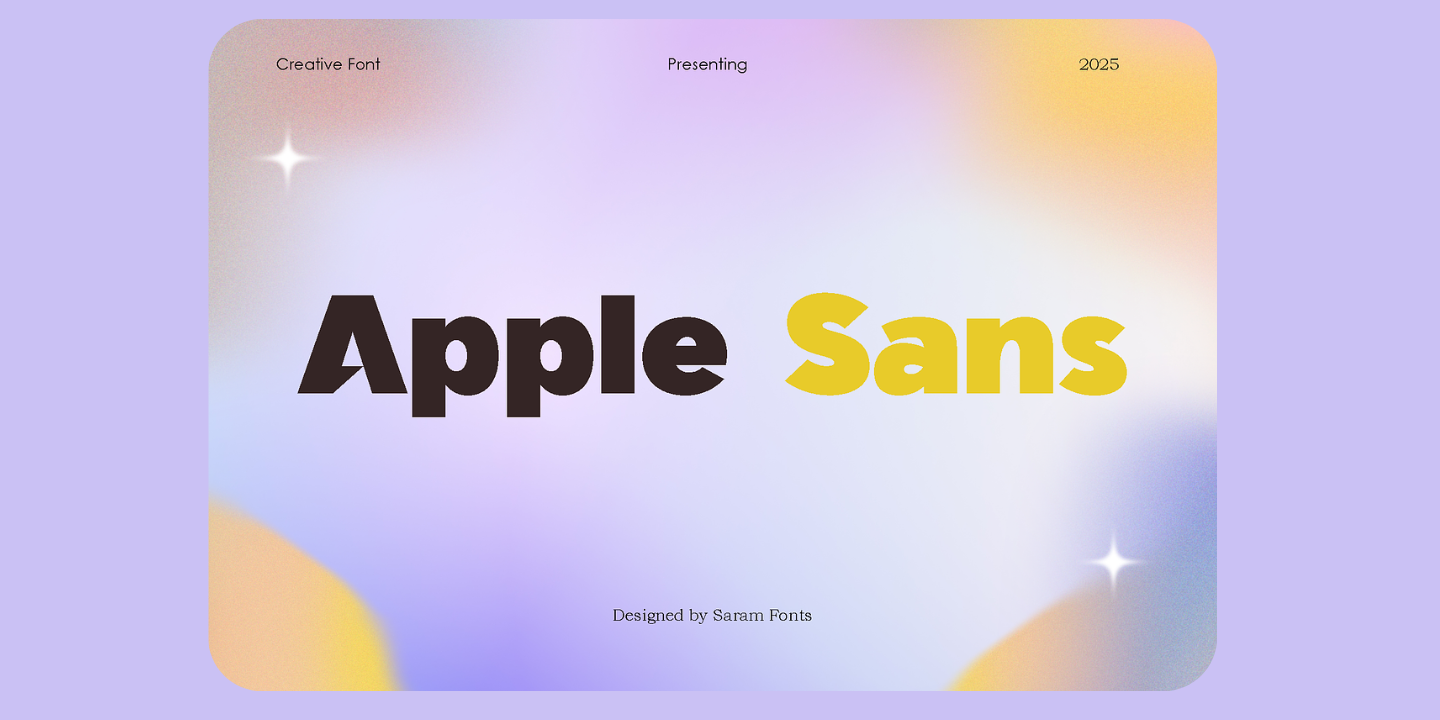
Apple Sans is a clean and contemporary Sans Serif font, perfect for creating sleek and professional designs. With its refined letterforms and versatile style, this typeface is ideal for logos, posters, headlines, web design, magazines, packaging, stationery, and more.
With OpenType features, including a wide selection of alternate letters and ligatures, Apple Sans allows you to effortlessly craft unique typography, making it an excellent choice for branding and creative projects.
Modern Sans Serif Design – A clean and professional look for any project.
OpenType Features – Access alternate characters and ligatures for unique typography.
Multilingual Support – Covers multiple languages for global usability.
Versatile & Easy to Use – Works seamlessly across multiple design platforms.
Logos & Branding: Create professional and stylish brand identities.
Posters & Headlines: Make bold statements in marketing and advertising.
Web & UI Design: Enhance website typography with a sleek modern touch.
Magazine & Editorial Layouts: Achieve a clean, readable design.
Packaging & Stationery: Ensure a polished and sophisticated look for products.